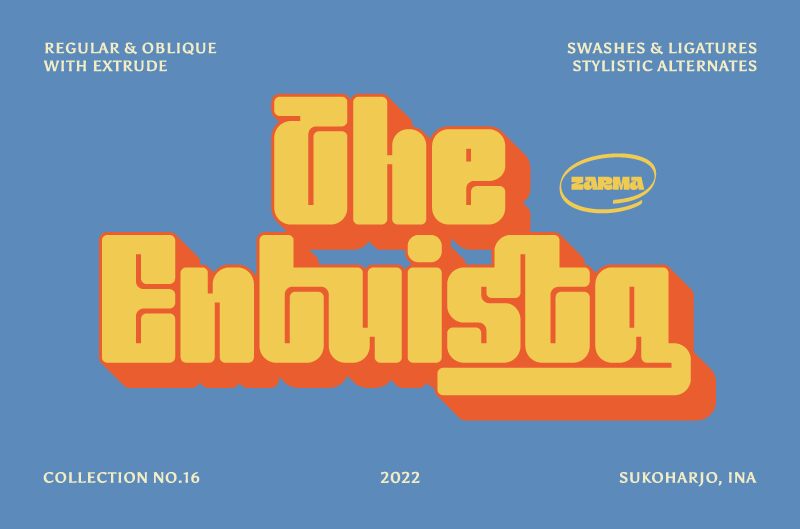
Entuista Regular, designed by Zarma Type Foundry, is a groovy and bold display font that will add a touch of unique retro style to your projects. With its squary and chunky design, this font is perfect for creating eye-catching headlines, logos, posters, and advertisements. The condensed width adds a sleek and modern feel to the text, making it suitable for designs that require a compact yet impactful look. Whether you're working on vintage-inspired designs or modern projects that need a bold statement, Entuista Regular will save you time with its built-in extrude effect.